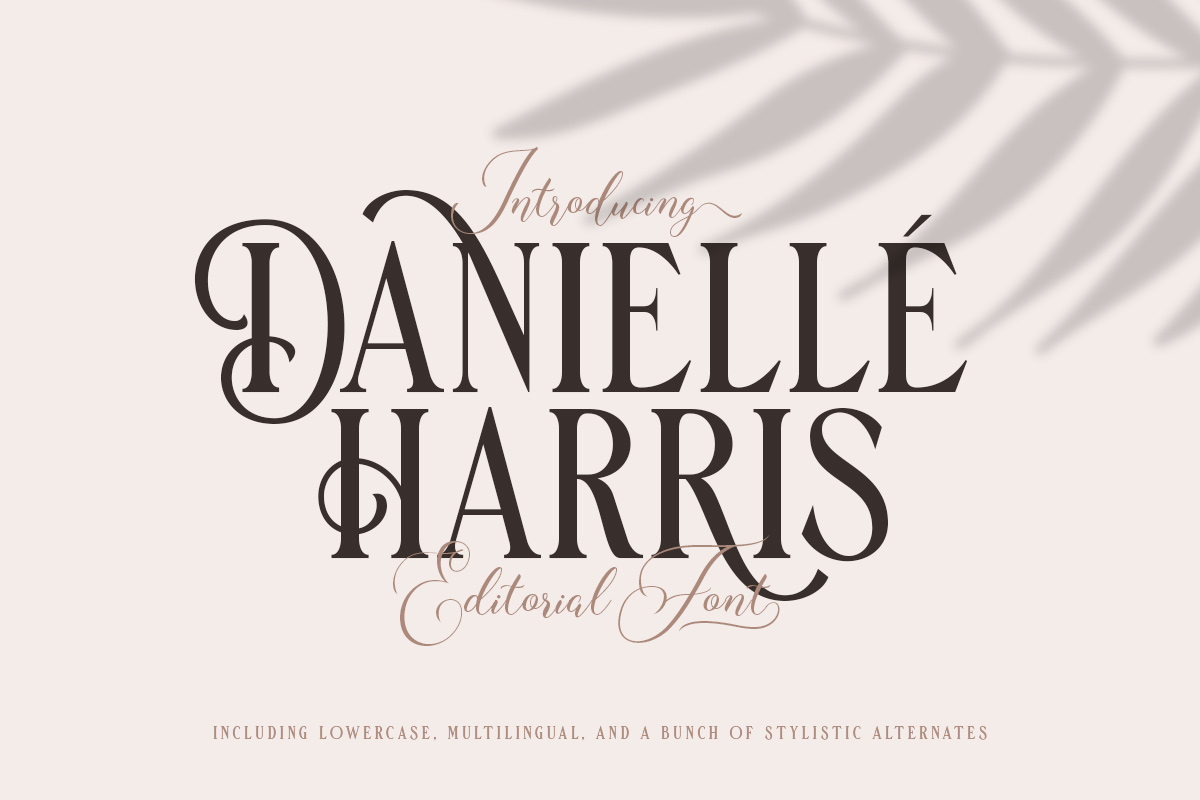
Danielle Harris - Editorial Font
Perfect for magazine layouts, editorial headlines, book covers, branding, and high-end advertising.
The Danielle Harris - Editorial Font excites designers with its sophisticated serif design, elegant curves, and strong readability that bring a polished, professional touch to any editorial project.
Font families: Danielle Harris Regular, Danielle Harris Italic, Danielle Harris Bold.
The Danielle Harris - Editorial Font Free Download is a refined serif typeface crafted specifically for editorial use. Its balanced proportions and delicate stroke contrasts make it ideal for stylish magazine spreads, impactful headlines, and distinguished branding materials.
One of the key strengths of Danielle Harris - Editorial Font is its versatility—it works beautifully for both body text and display, maintaining elegance and clarity across all sizes and formats.
In branding, Danielle Harris communicates professionalism, elegance, and sophistication. It pairs well with minimalist layouts, monochrome palettes, and high-quality photography, perfect for fashion magazines, luxury brands, and corporate identities.
For digital projects, this font enhances blog headers, digital magazines, and promotional graphics with a clean, upscale aesthetic that commands attention.